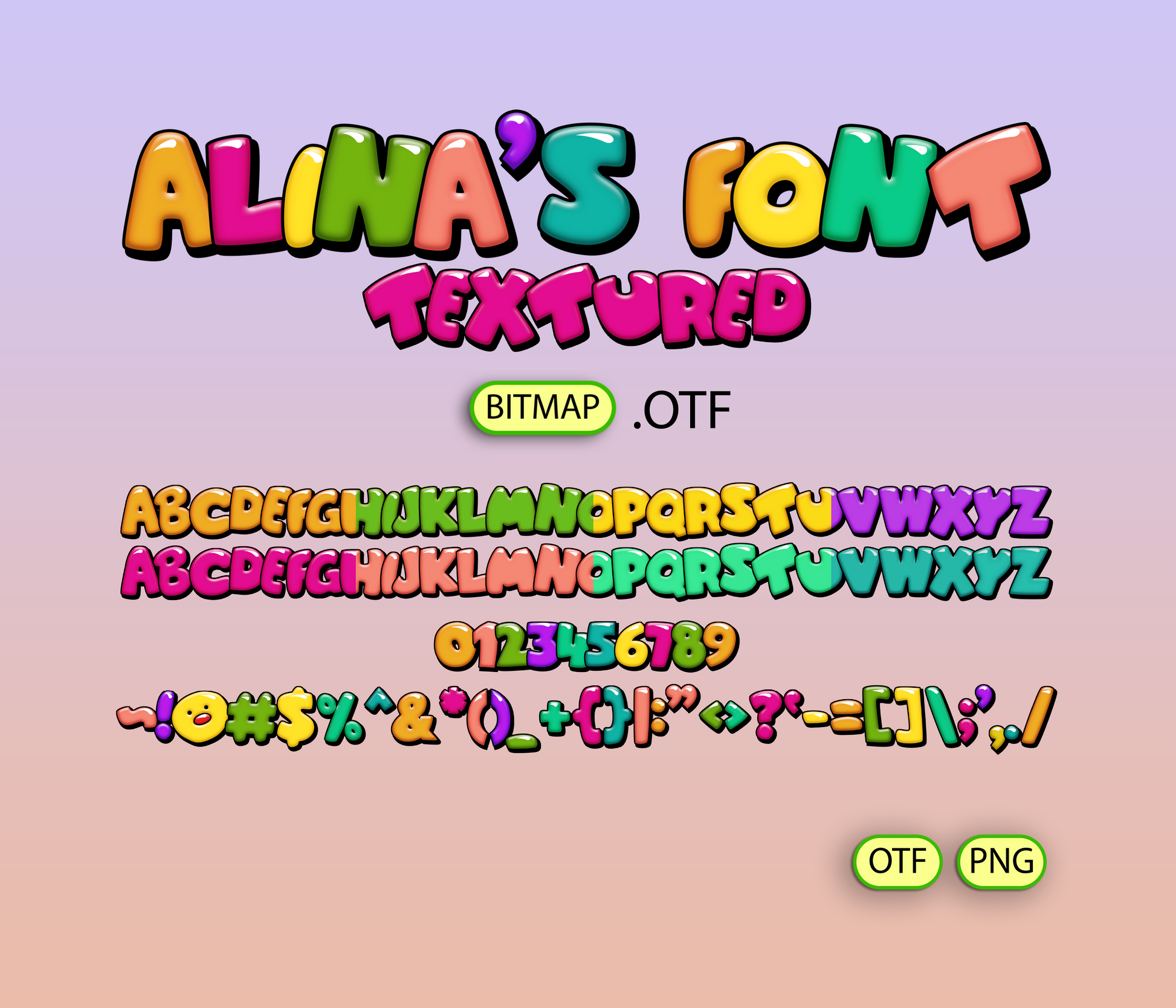
Cozy Kids Playroom Font Textured
Step into the whimsical world of childhood nostalgia with our Cozy Kids Playroom font, capturing the essence of a beloved children's television program known for its colorful characters, oversized furniture, and playful adventures. Perfect for children's event planners, educational content creators, nostalgic merchandise designers, and playful brands, this font brings the cheerful, bouncy spirit of classic 90s children's entertainment to your projects. Create birthday invitations, themed merchandise, or digital content with the warm, friendly energy of this beloved childhood classic.
Our Cozy Kids Playroom font features rounded, playful letters and cheerful characters reflecting the colorful, imaginative world of childhood television entertainment. Ideal for:
- Children's Events: Striking invites, posters, banners for birthday parties, playdates, and school functions
- Educational Materials: Worksheets, learning aids, and classroom decorations with a friendly, approachable aesthetic
- Digital Media: Enhance websites, blogs, social media with playful headers and graphics for family-friendly content
- Nostalgic Content: Authentic flair for retro-inspired designs, throwback merchandise, and 90s themed celebrations
- Personal Projects: Cheerful touches for scrapbooking, DIY crafts, children's room decor inspired by classic kids' programming
Our font pays tribute to the legendary children's television classic, empowering your designs with its cheerful and nostalgic spirit. Whether crafting children's party materials, designing educational resources, or adding a playful touch to personal projects, this font communicates the warm essence of childhood imagination and comfort. Ready to inject playful nostalgia into your creations? This font is your key to charming, impactful design.